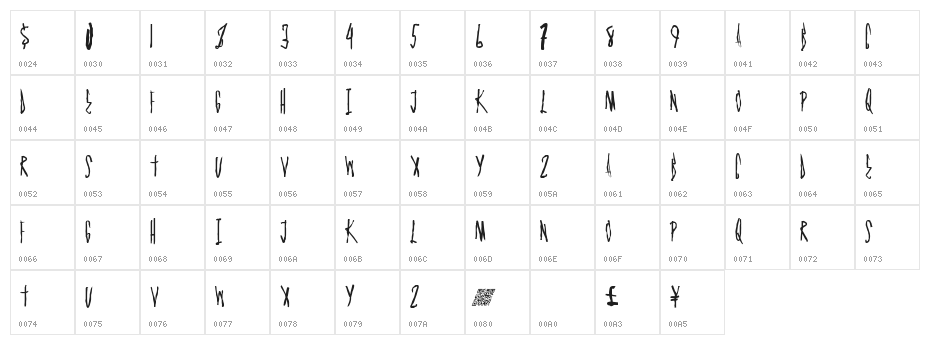
GraphMaster Font
GraphMaster Description
This font features a distinctive, edgy style with a hand-drawn appearance. The characters are elongated and slightly irregular, giving them a dynamic and expressive look. The uppercase letters are bold and prominent, while the lowercase letters maintain a consistent style, adding to the overall cohesiveness. Numbers and special characters follow the same artistic theme, ensuring uniformity across all glyphs. The font's unique character makes it suitable for creative and artistic projects, where a touch of individuality is desired. Its rough, brush-like strokes convey a sense of movement and energy, making it stand out in any design.
| Proposed Projects | Ideal for posters, album covers, graffiti art, and creative branding. |